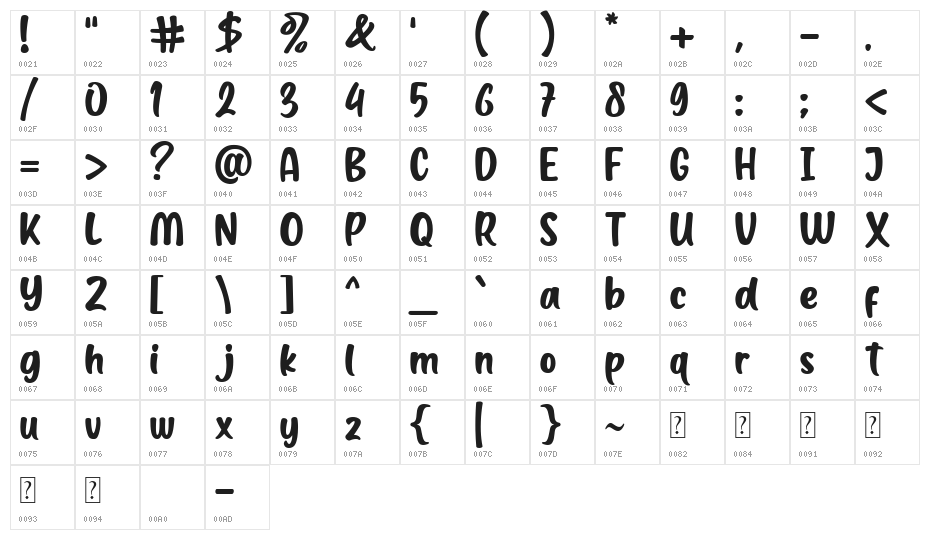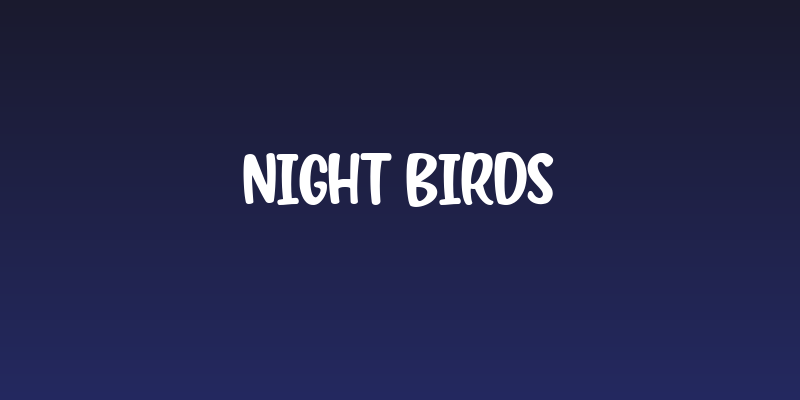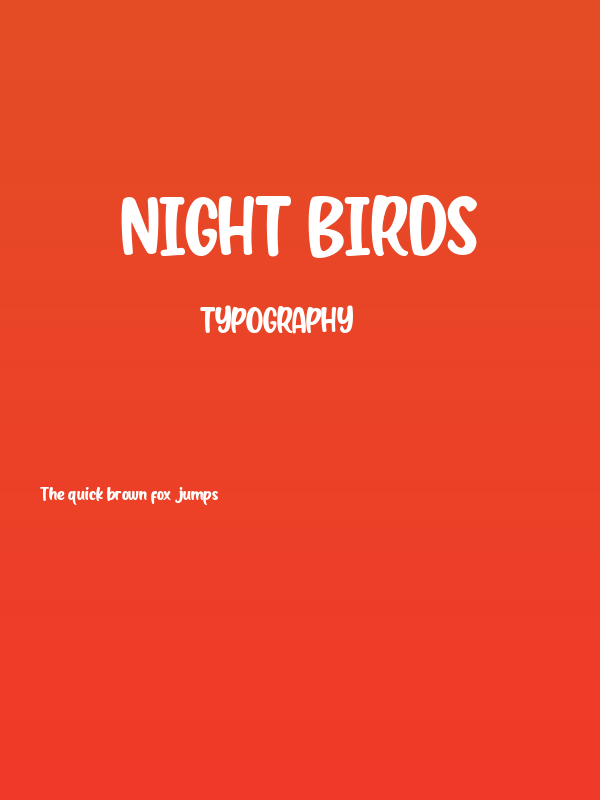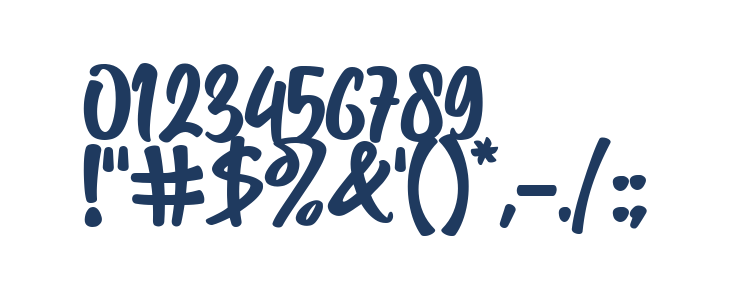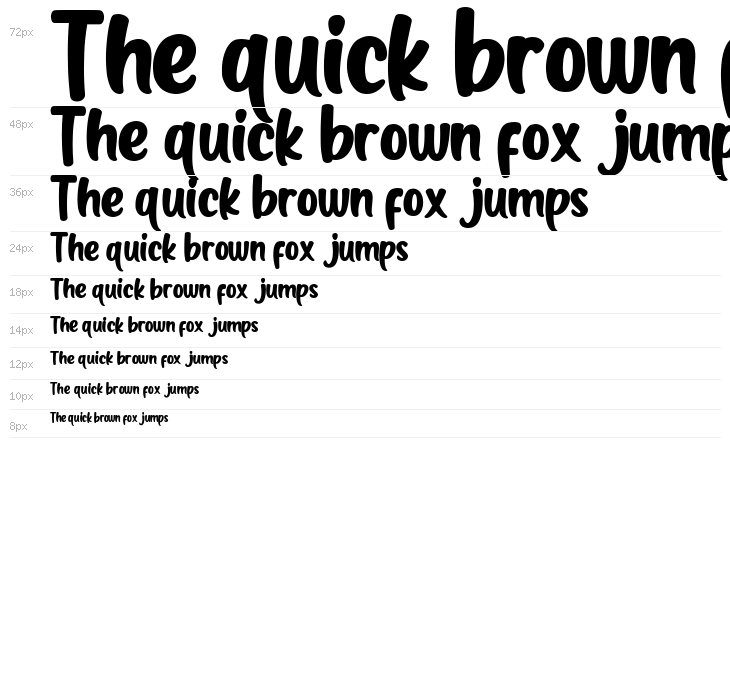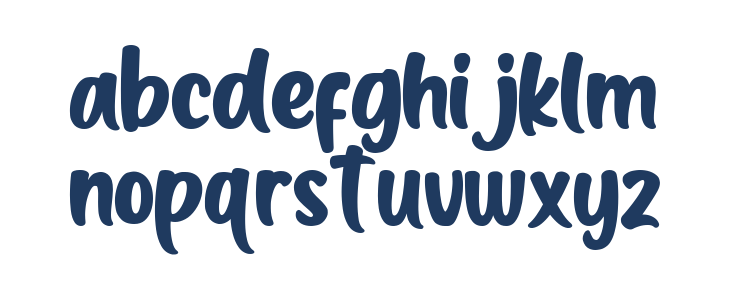
Night Birds Font
Night Birds Description
This font features a playful and bold handwritten style, characterized by its rounded and smooth letterforms. The uppercase and lowercase letters maintain a consistent thickness, giving it a cohesive and friendly appearance. The numbers and special characters are designed with the same playful aesthetic, making them easily readable and visually appealing. The font's overall look is casual and approachable, suitable for projects that require a touch of whimsy and creativity.
NIGHT-BIRDS UPPERCASE
NIGHT-BIRDS LOWERCASE
NIGHT-BIRDS OTHER CHARS
| Proposed Projects | Ideal for children's books, greeting cards, playful branding, and social media graphics. |